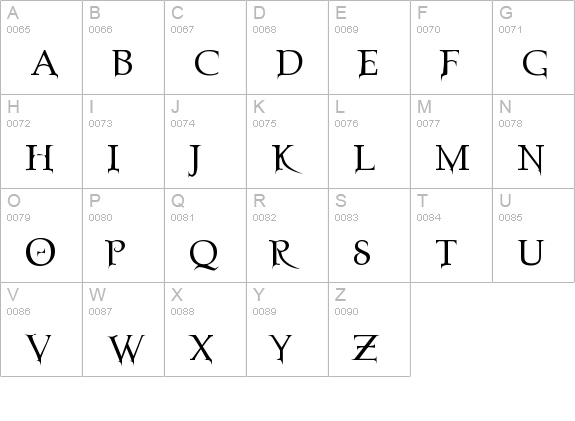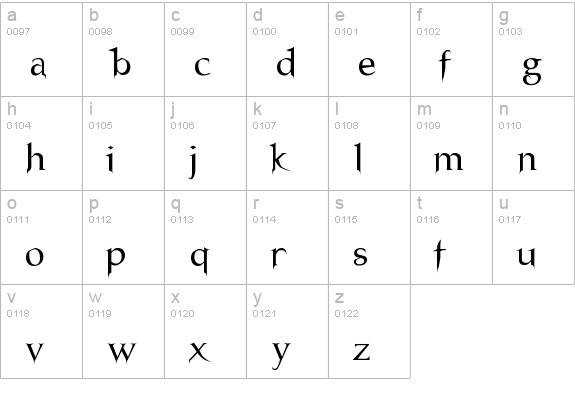
Nosferatu Regular Font Details
Nosferatu Regular is the standard, neutral variant in the Nosferatu typeface family \xE2\x80\x94 well suited to general body text, paragraphs, and standard typographic work.
The Nosferatu Regular font is a hauntingly beautiful typeface that exudes a sense of mystery and elegance. Its sharp, angular serifs and tall letterforms give it a gothic and otherworldly feel, perfect for adding a touch of the supernatural to your designs. Whether you're working on a horror-themed project, a vintage poster, or a Halloween invitation, Nosferatu Regular will surely make a lasting impression. The best part? This unique font is available for free download at FontsMarket.com. Embrace the darkness and unleash your creativity with Nosferatu Regular today!